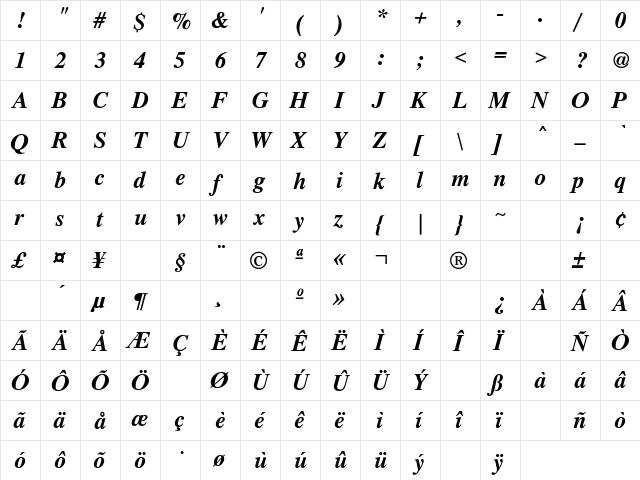
Roman Regular
Design Context for Roman Typeface
Roman offers clean, dependable letterforms without strong stylistic allegiance, making it a practical choice for designers who need flexibility.
Pro Tip: Use Roman in both headline and body roles to test its range before committing to a single application.